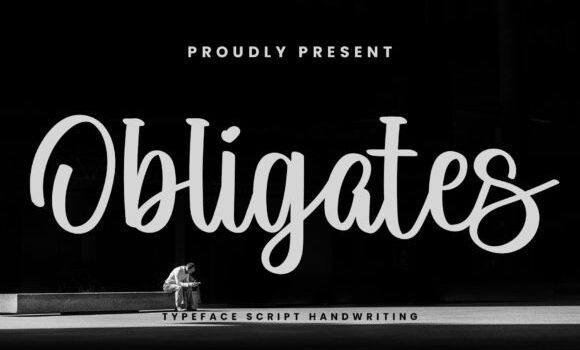
obligates
Obligates Font – Free Download Introduction to Obligates Font Obligates is a romantic and sweet calligraphy typeface with characters that dance along the baseline. 📸 Preview Gallery 5 images 📌 Product Name Obligates Font 👤 Author Bintang Studio 📂 Category